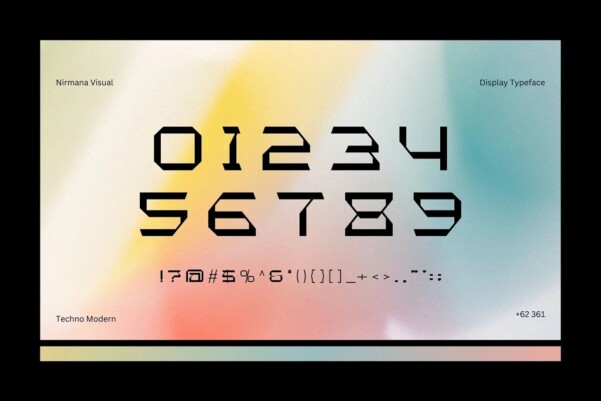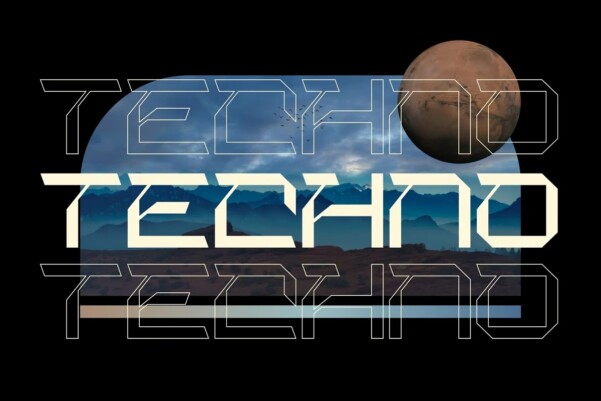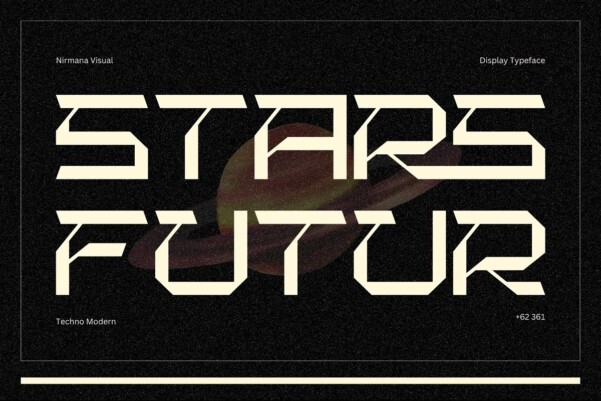
Stras Futur Font
Stars Futur Font – Modern Font, Serif Display Typeface. Stars Futur offers beautiful typographic harmony for a diversity of design projects, including logos & branding, social media posts, advertisements & product designs.